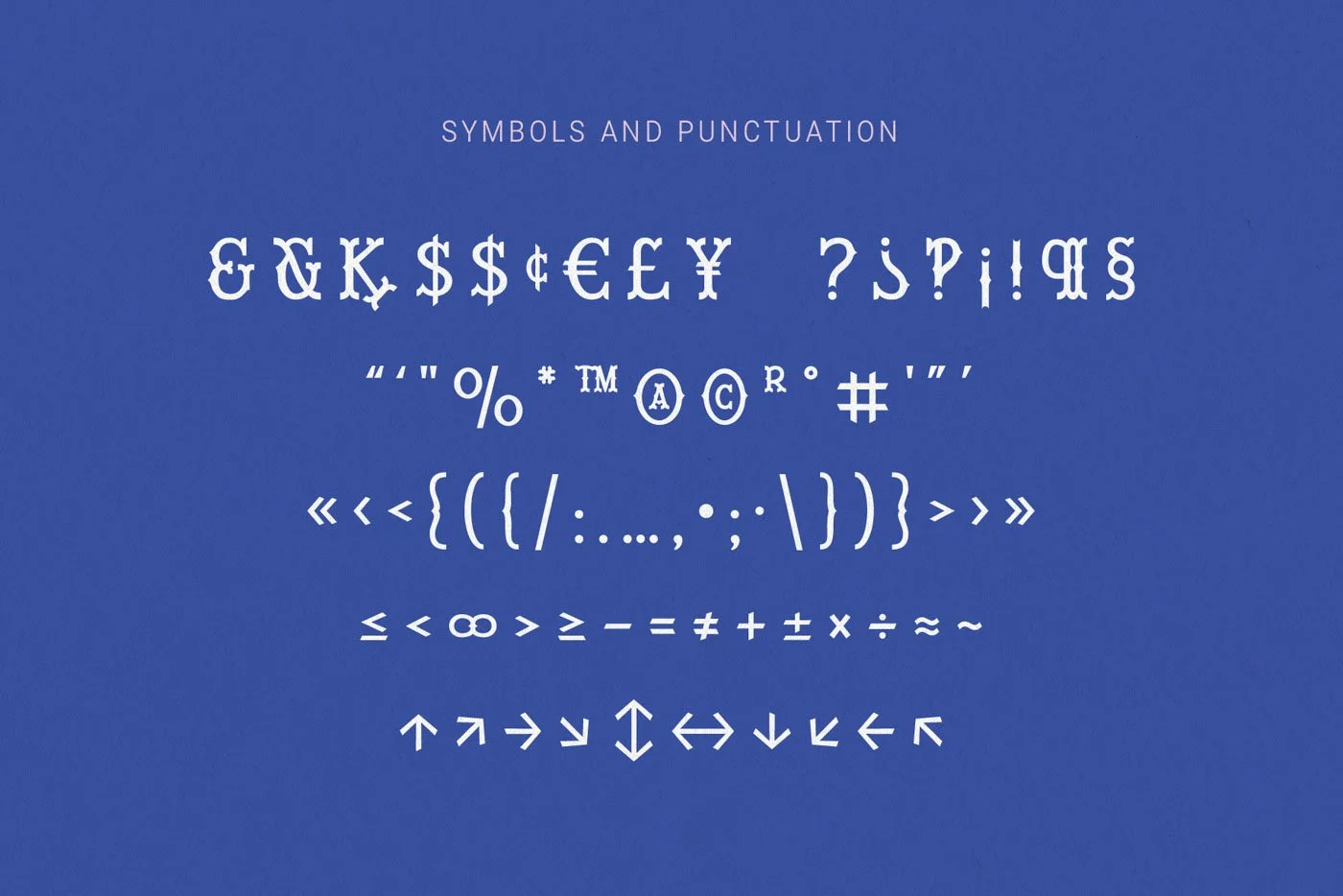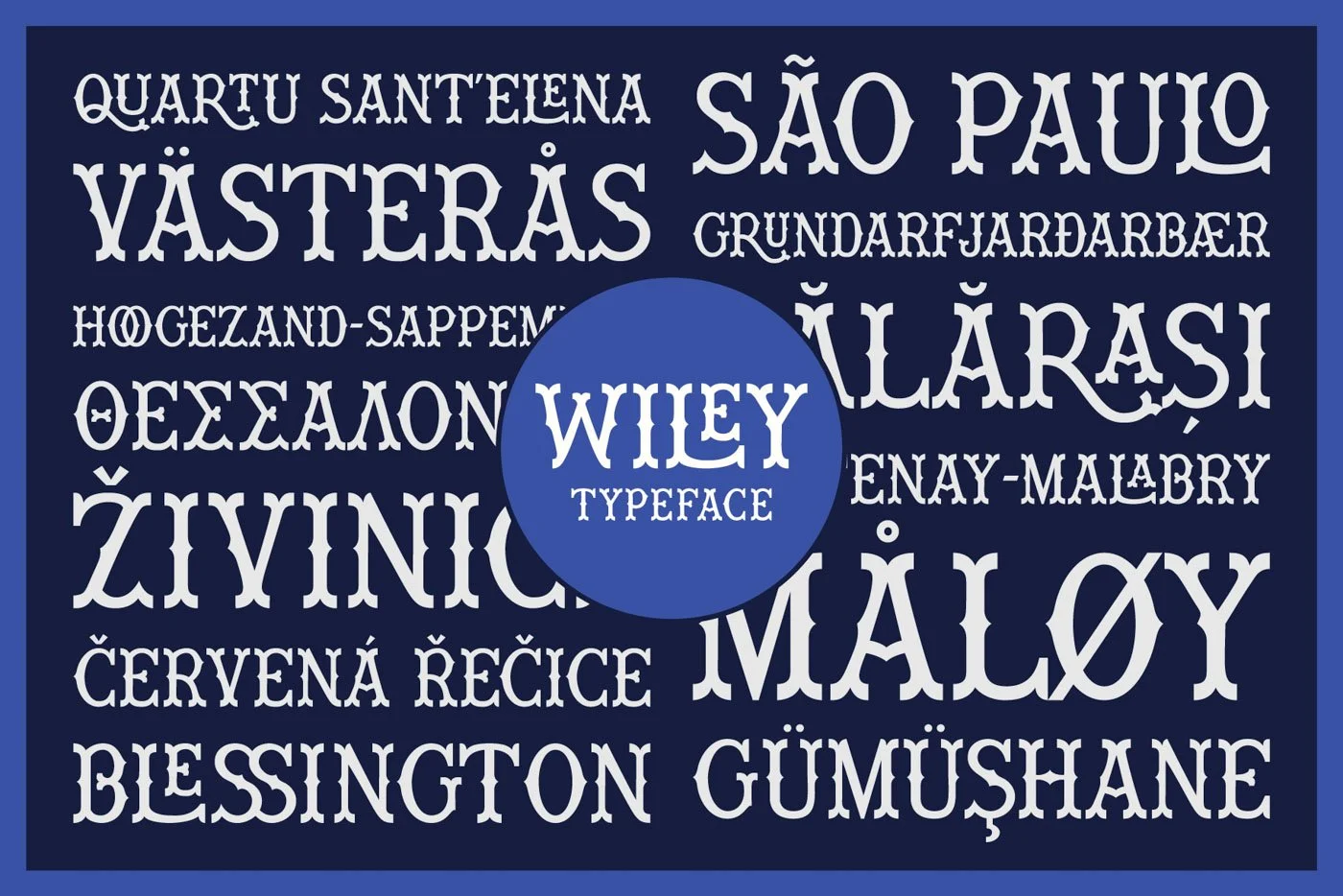
Wiley Vintage Decorative Font
Wiley is a ligature-rich, decorative typeface with support for Latin and Modern Greek. It has over 500 glyphs which include:
• the complete Latin alphabet (with all accent marks),
• the complete Modern Greek alphabet,
• 80 standard and discretionary ligatures in both Latin and Greek,
• numerals, ordinals, and fractions,
• decorative ornaments and finials,
• extensive punctuation and diacritical markings.
➺ Ligatures and alternates
Wiley has over 500 glyphs including 80 standard and discretionary ligatures. To get the most out of this font, it is best to use software that supports Open Type fonts (Adobe programs, Corel Draw, Affinity Designer, etc). This type family has tons of built-in OpenType ligatures and alternates, which are what make it so customizable and decorative. (If you don't know how to use open type with your software, this is a great guide.)